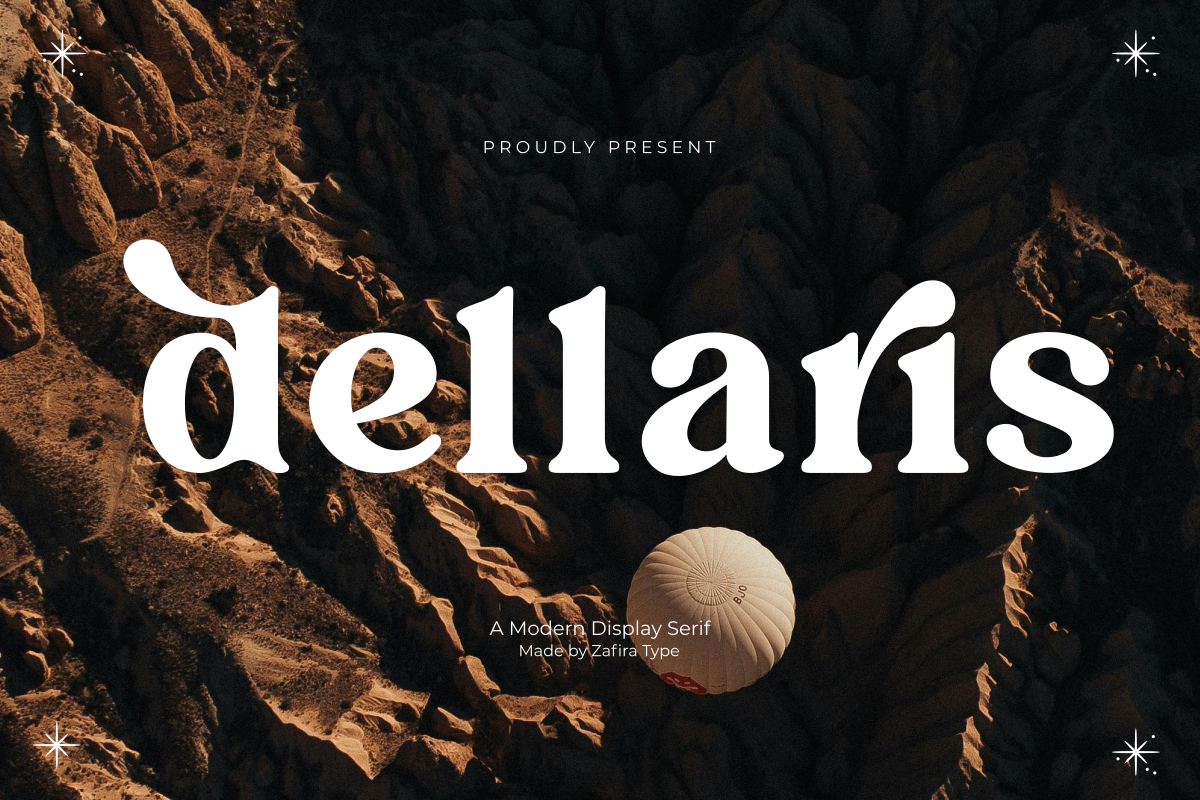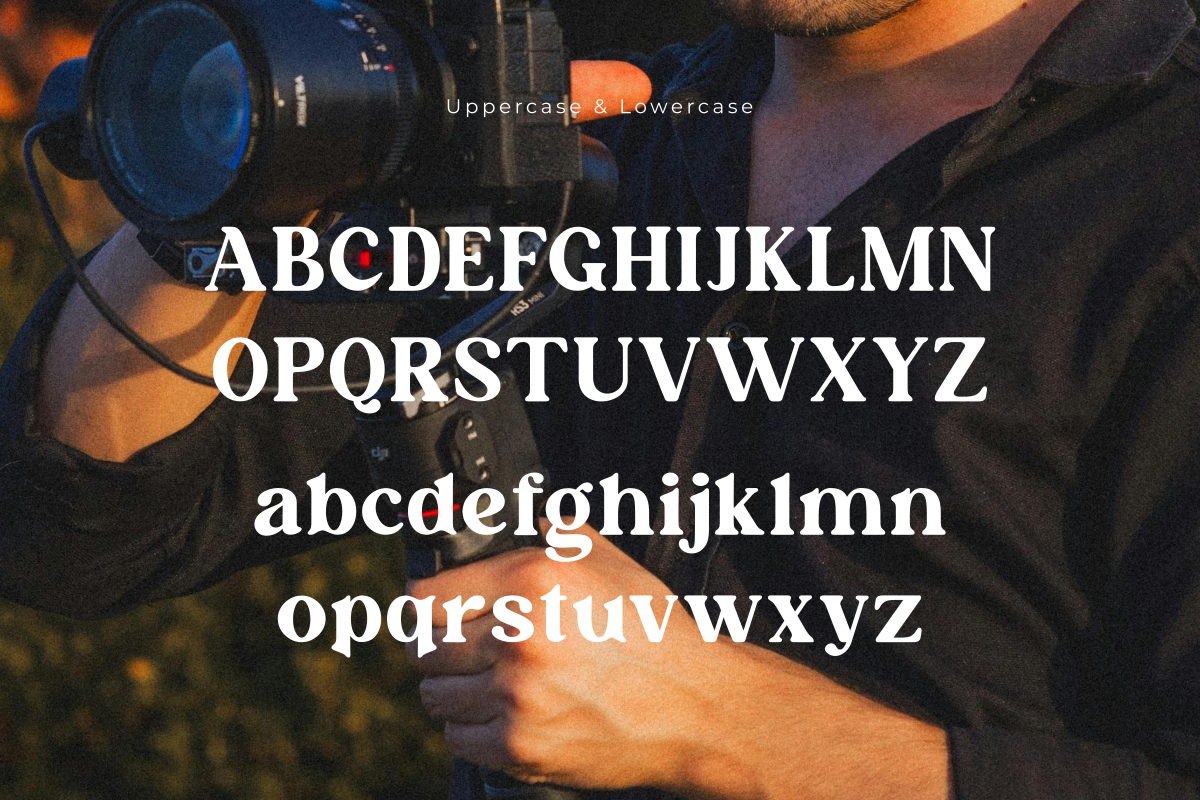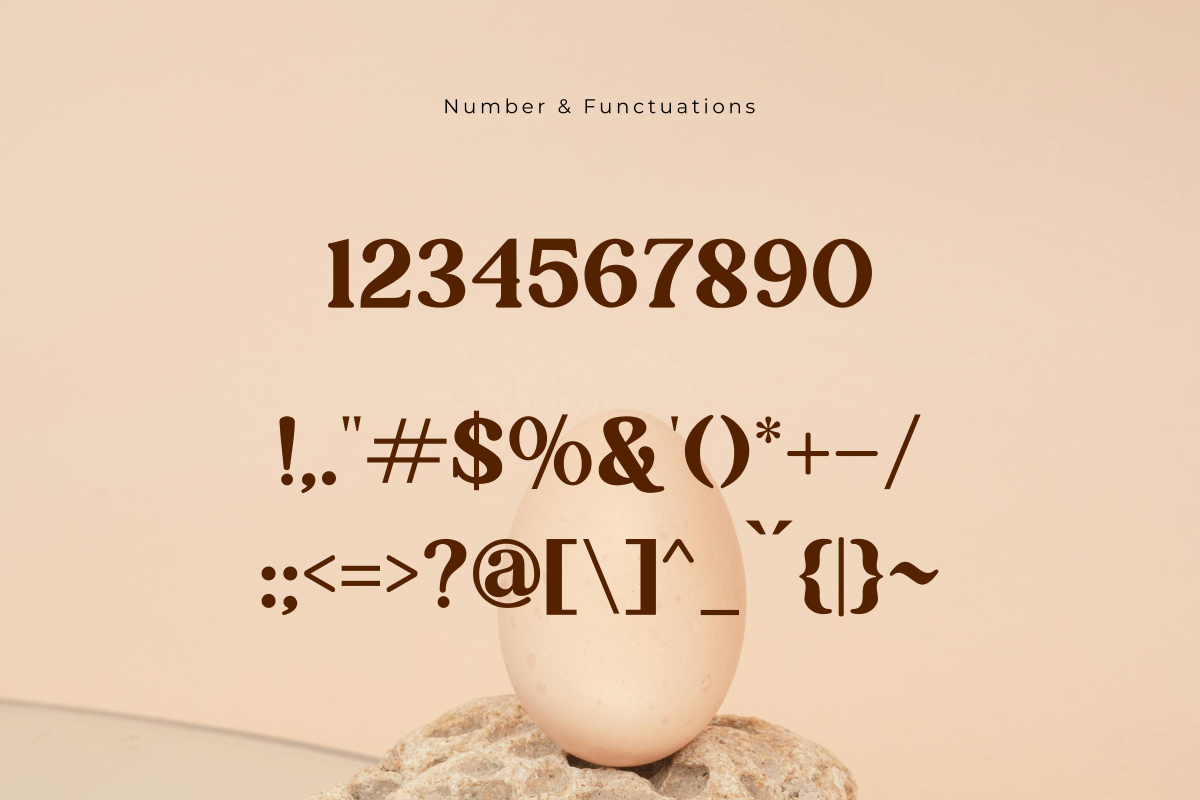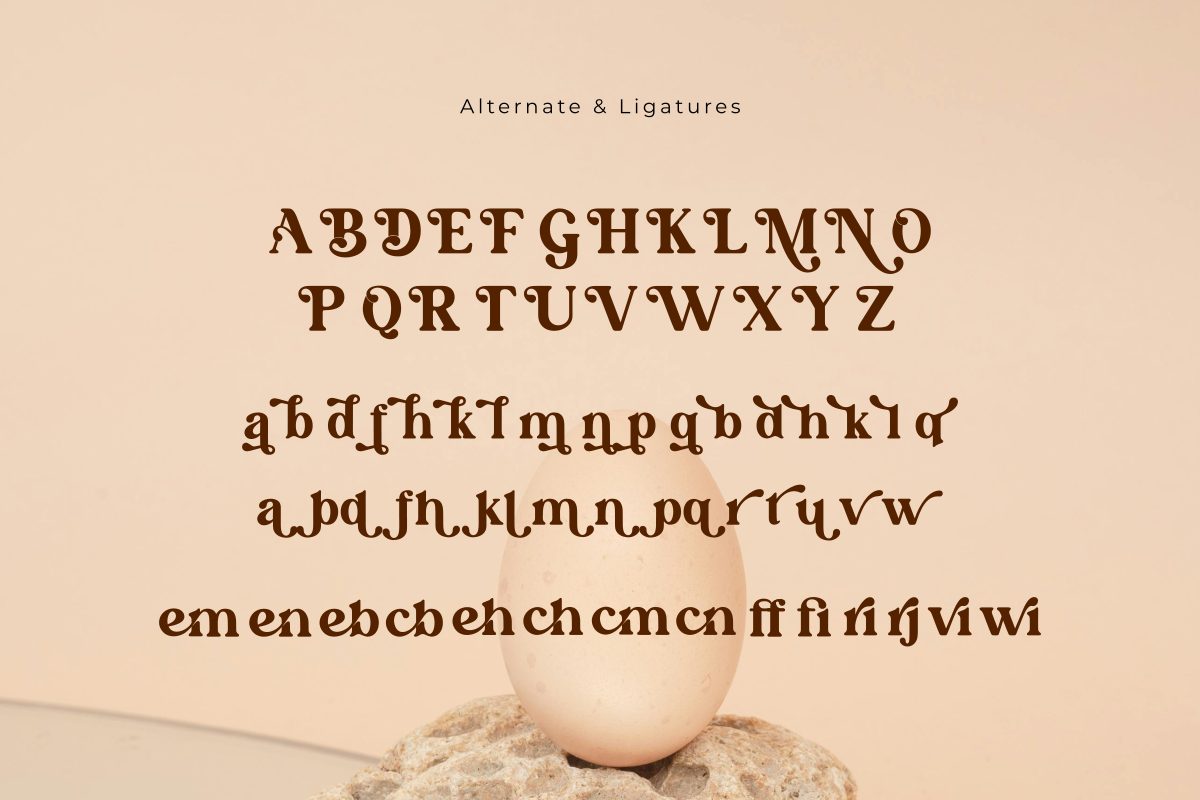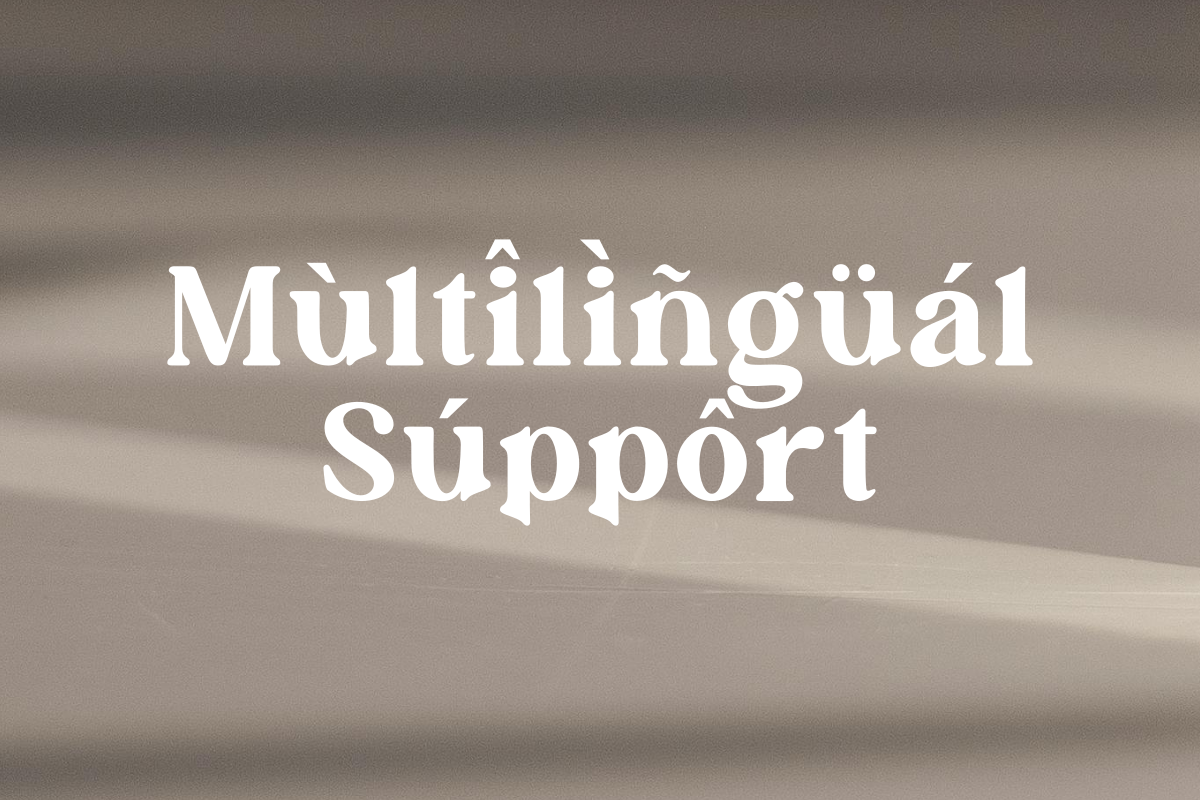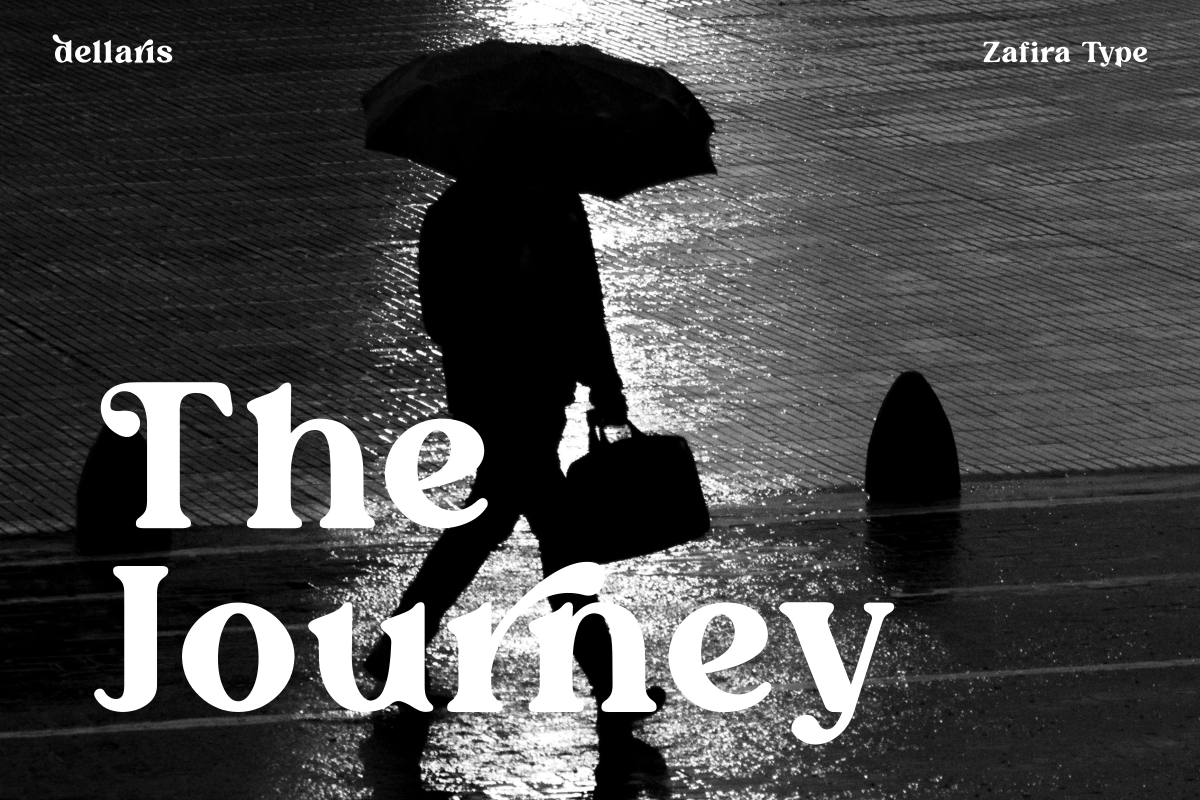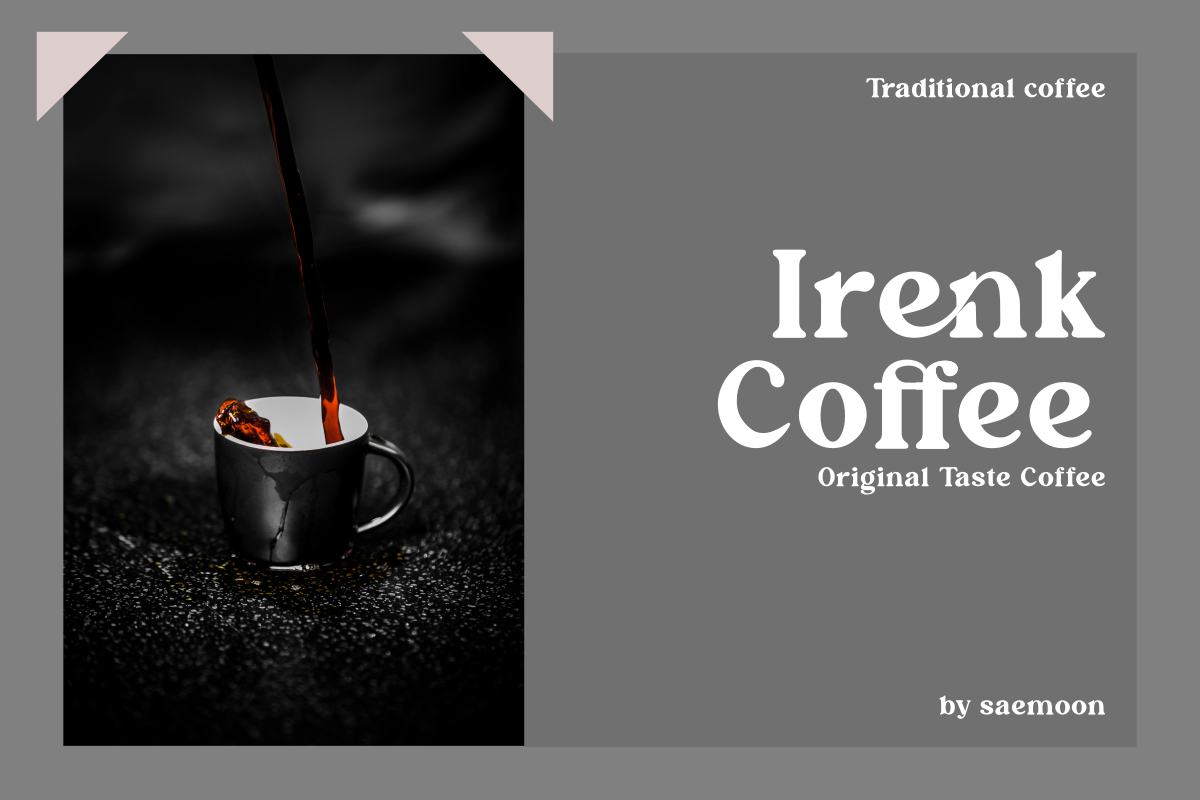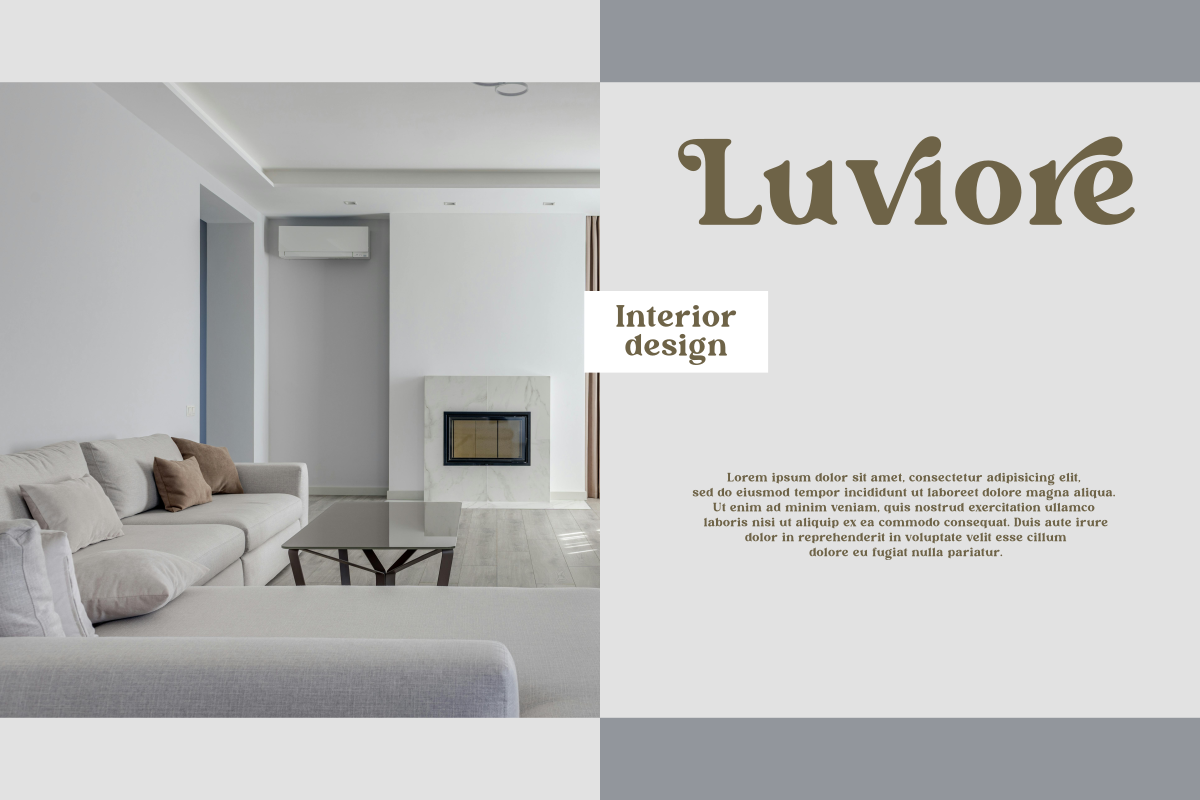
Dellaris
Dellaris is a modern and elegant serif font that effortlessly blends sophistication with a contemporary touch. With clean lines and a stylish demeanor, this font exudes a sense of professionalism and refinement. Perfect for adding a touch of class to your projects, Dellaris is ideal for anything from business documents to invitations. Elevate your typography with the timeless appeal of Dellaris, making your text stand out with a refined and modern flair.